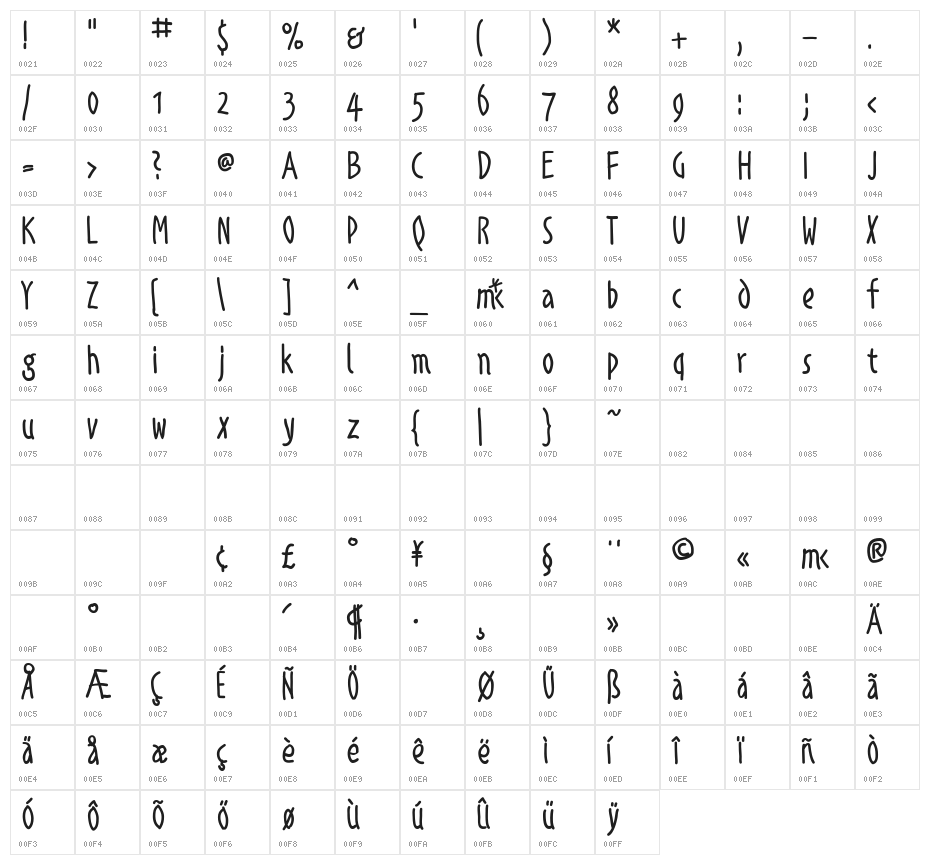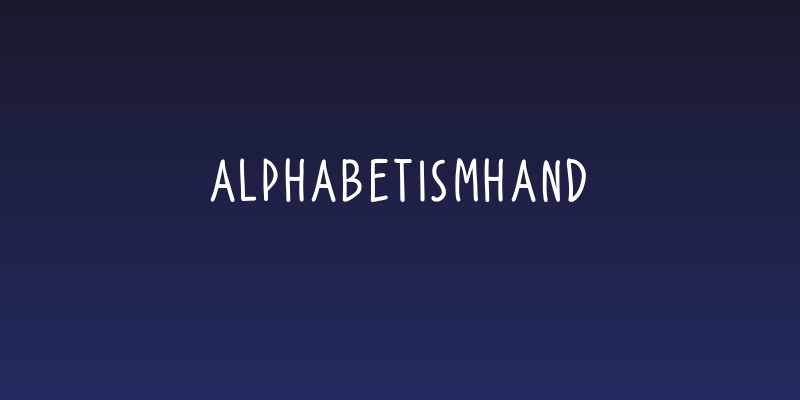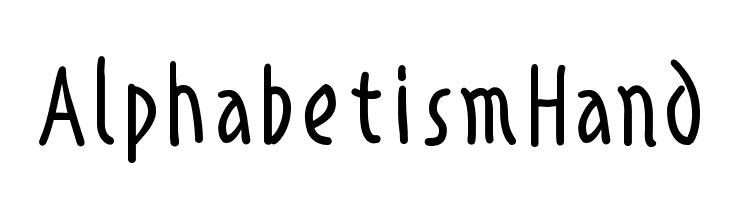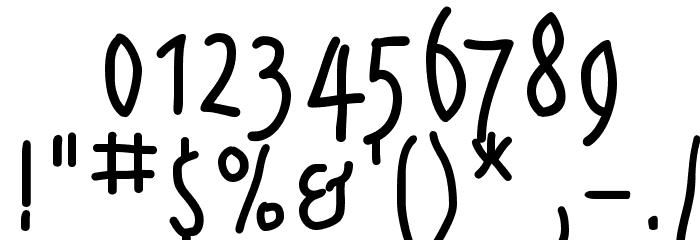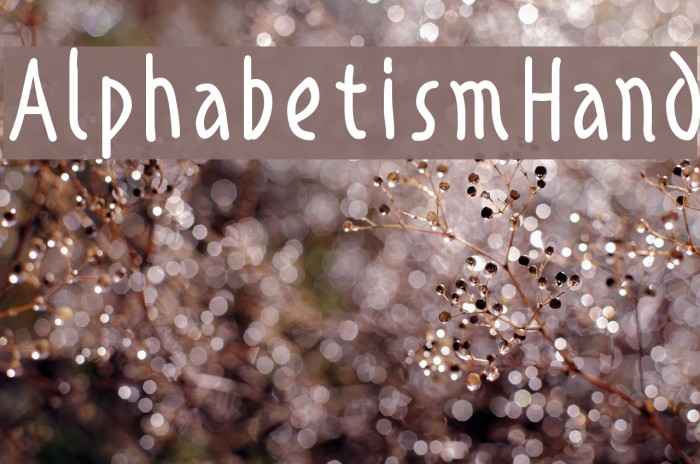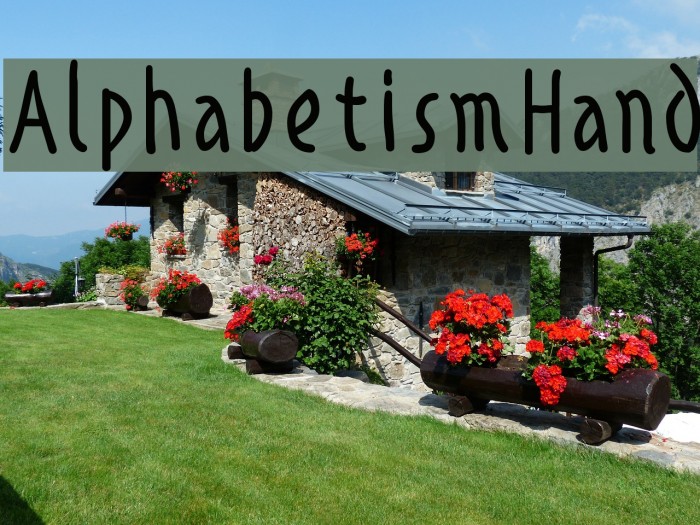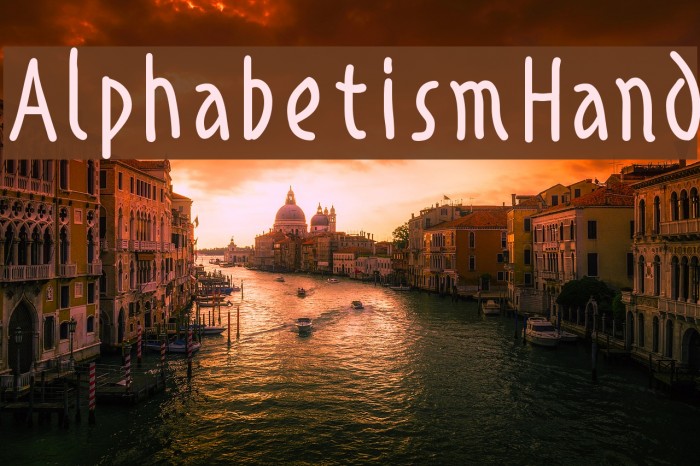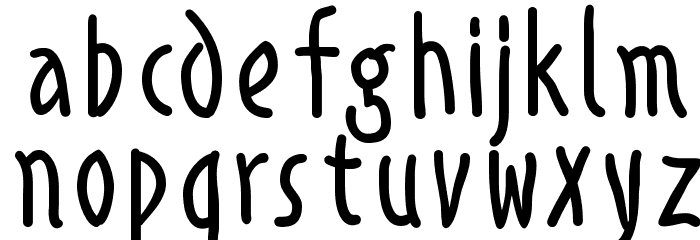
AlphabetismHand Font
AlphabetismHand Description
This font features a playful and casual handwritten style, characterized by its uneven strokes and organic flow. The letters have a natural, hand-drawn appearance, with slight variations in size and shape that add to its charm. The uppercase and lowercase letters maintain a consistent style, with rounded edges and a slightly irregular baseline, giving it a friendly and approachable feel. The numerals and special characters follow the same aesthetic, ensuring a cohesive look across all elements. This font is perfect for projects that require a personal touch or a relaxed vibe.
| Overall Style | Casual |
| Use Case | Headlines, Informal text, Creative projects |
| Proposed Projects | Ideal for greeting cards, personal invitations, children's books, and casual branding. |